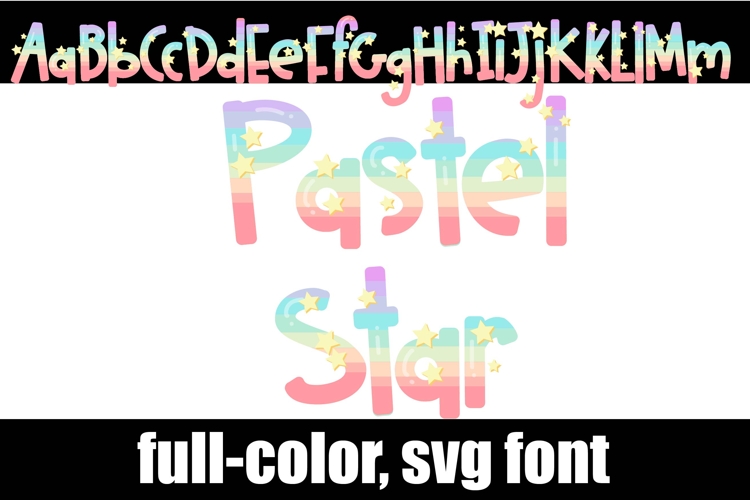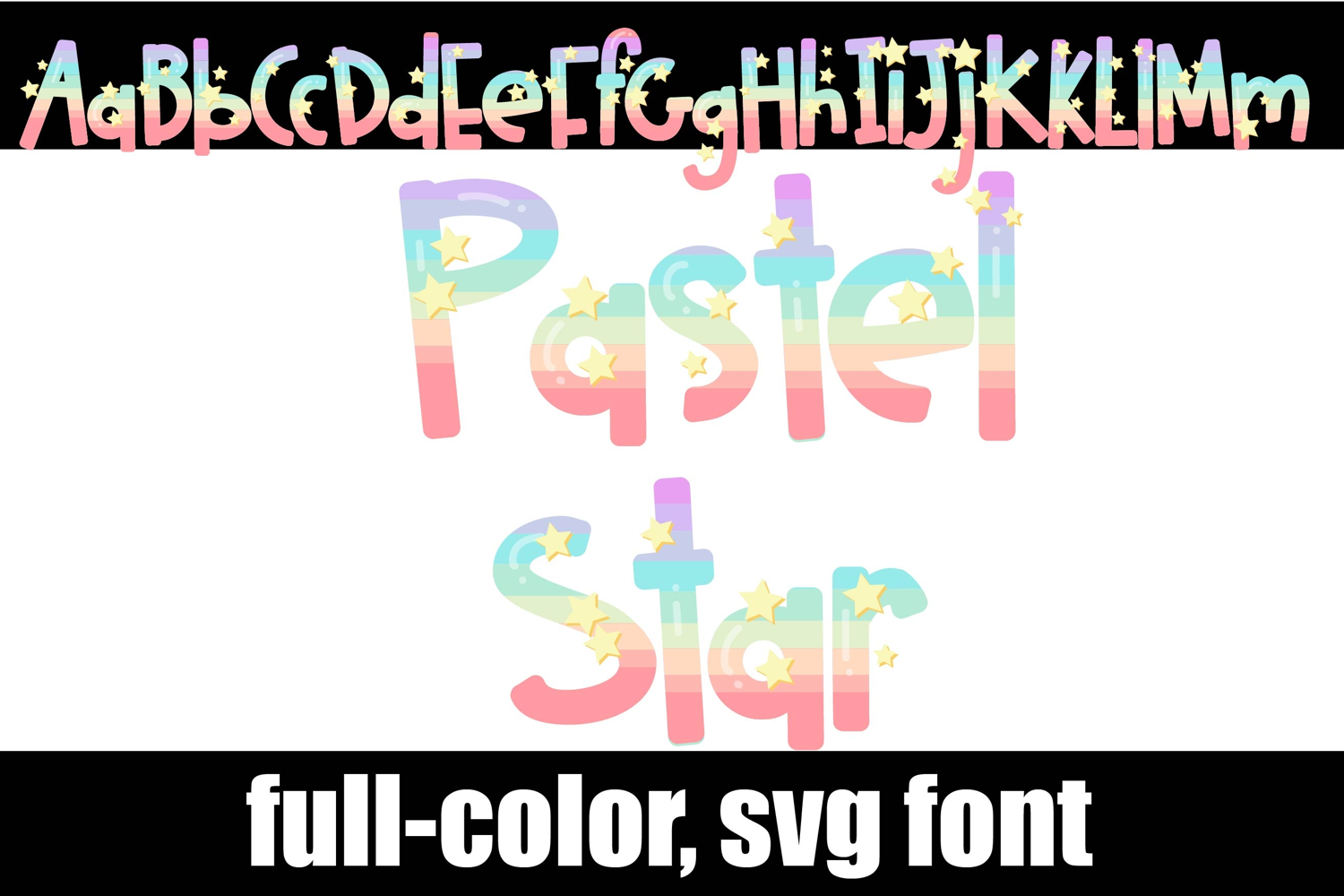
Pastel Star Color Font
This full-color, sans serif is in a pastel color palette with stars. There is an alt case of similar letters without stars of each letter that you can access through your system's character map.